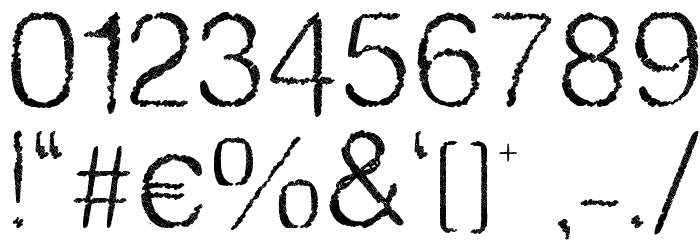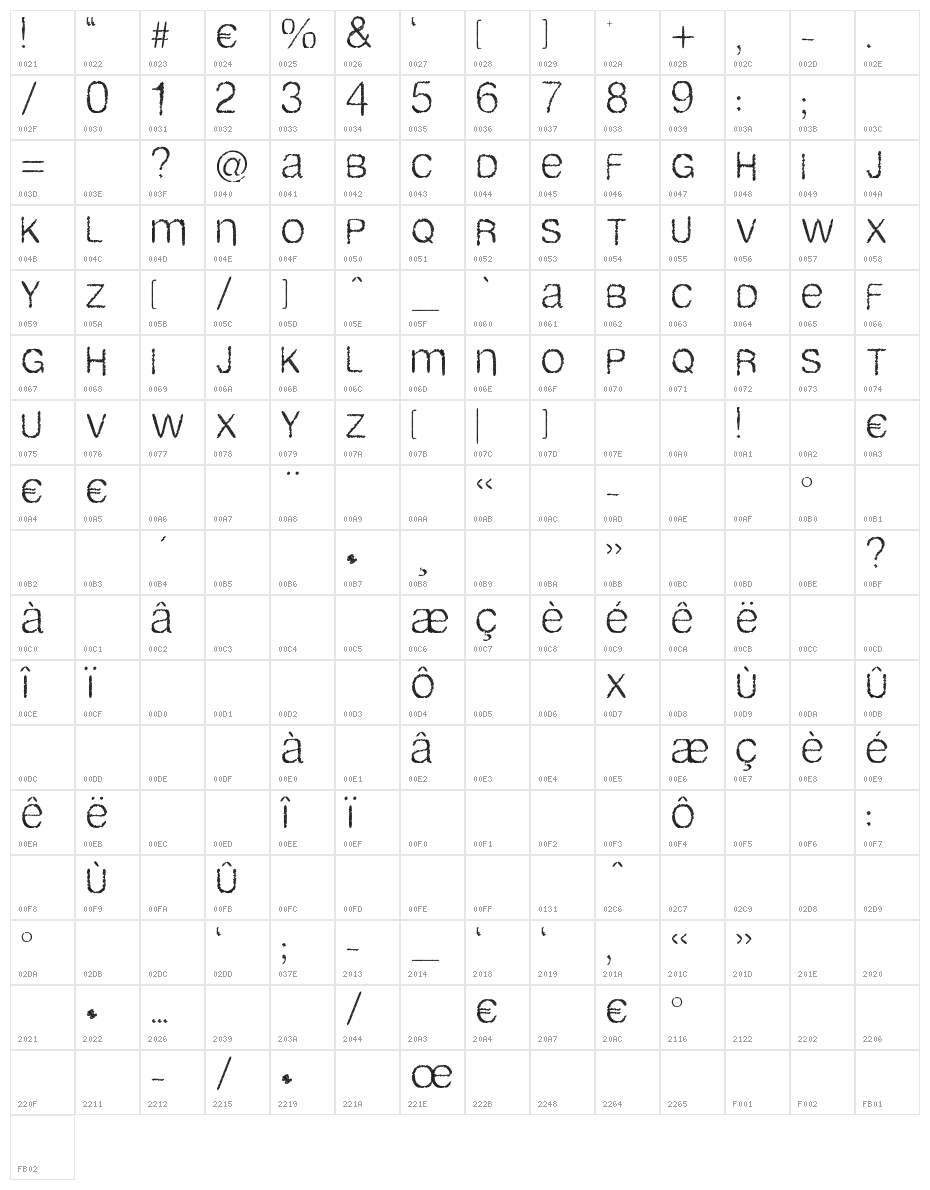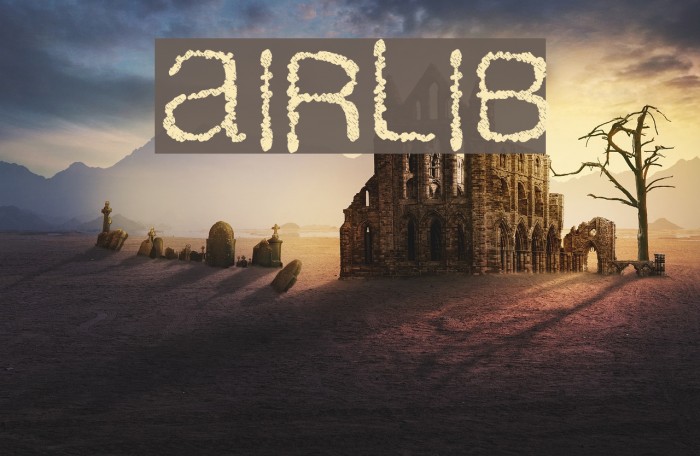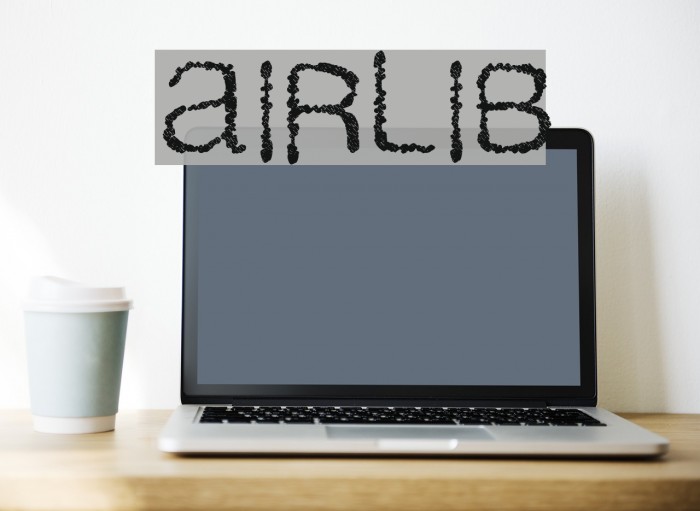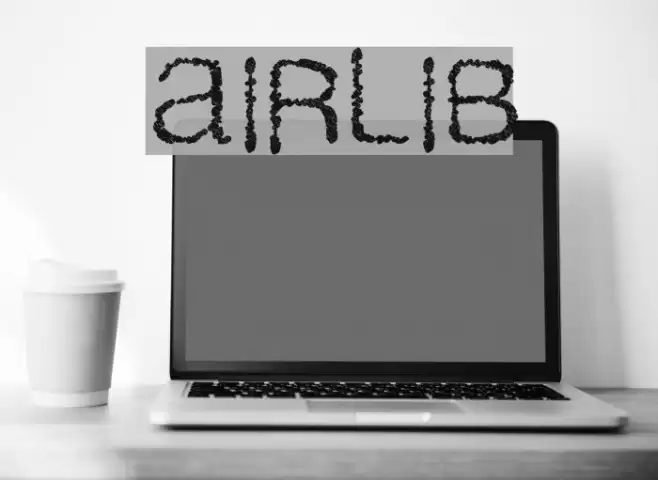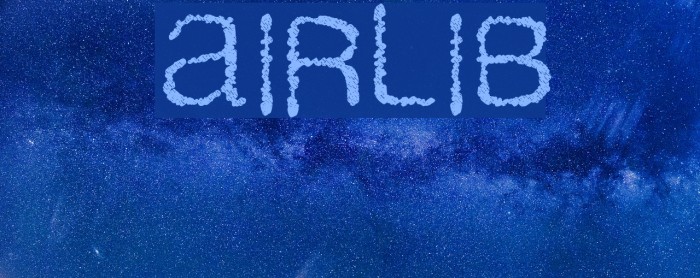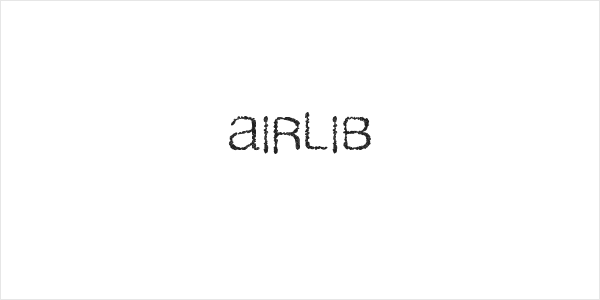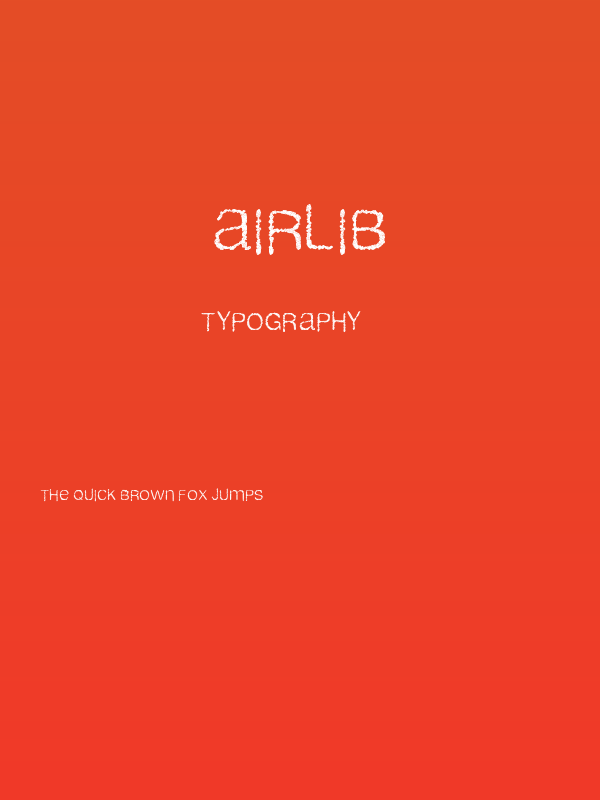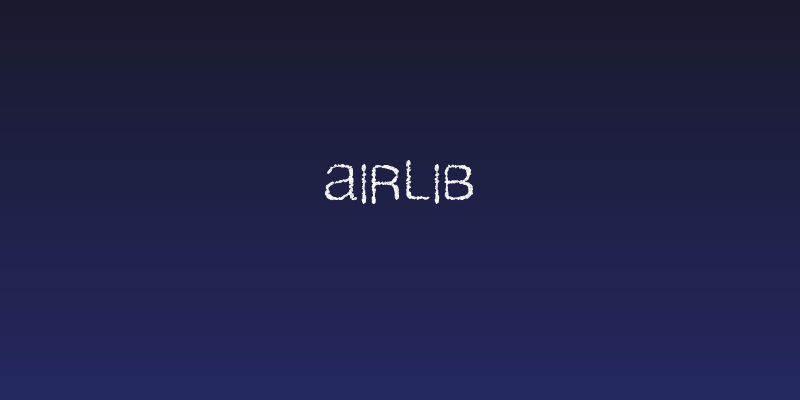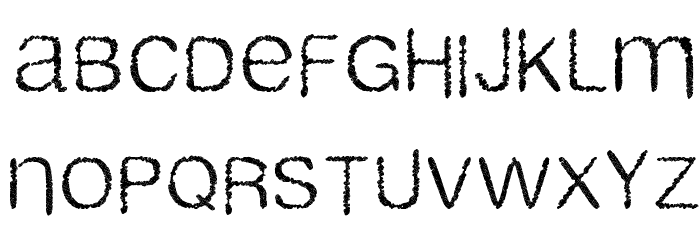
airlib Font
airlib Description
This font features a unique, textured appearance that mimics the look of letters formed by numerous small dots or particles. The characters maintain a consistent structure with rounded edges, giving them a soft, approachable feel. Despite the textured effect, the letters are clear and legible, making them suitable for various design applications. The font includes a full set of uppercase and lowercase letters, numbers, and a range of special characters, providing versatility for creative projects.
| Proposed Projects | Ideal for creative projects such as posters, branding, and packaging where a unique, textured look is desired. |